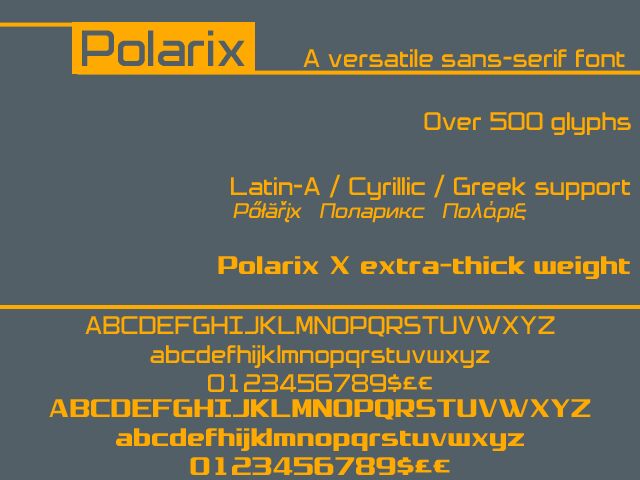
Polarix font family by Alex Richards includes 2 font styles in a structured sans serif design. The free font family features geometric letterforms, which results in a modern, and clean design. It’s quite legible, and has a technological and contemporary vibe to it. With a versatile and sophisticated look, it can suit a variety of personal or commercial use projects.
The font is recommended for branding, identity development, web, and mobile application design. Incorporate it into business cards, posters, flyers, invitations, prints, or physical products. It can also be a stylish addition to a packaging design, or t-shirts. It balances well in a design with both other sans typefaces and a contrasting serif.
Polarix is a versatile sans-serif font that brings a clean, futuristic feel to your designs. It offers extensive support for Latin characters, as well as Greek and Cyrillic writing systems. Additionally, the font includes an extra-thick variant, making Polarix suitable for a wide variety of applications.
Both Polarix and its variant Polarix X were created and released in 2022.